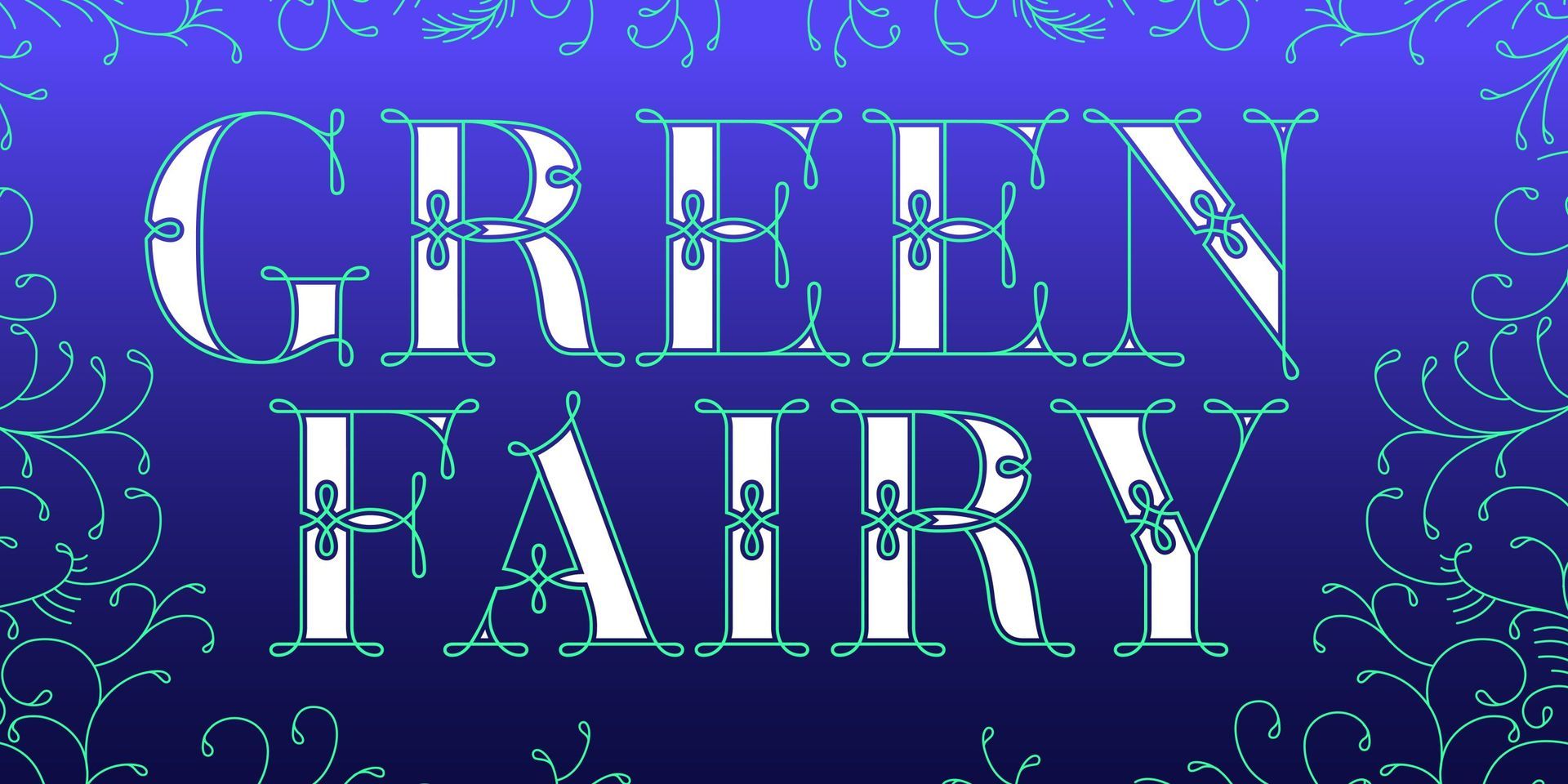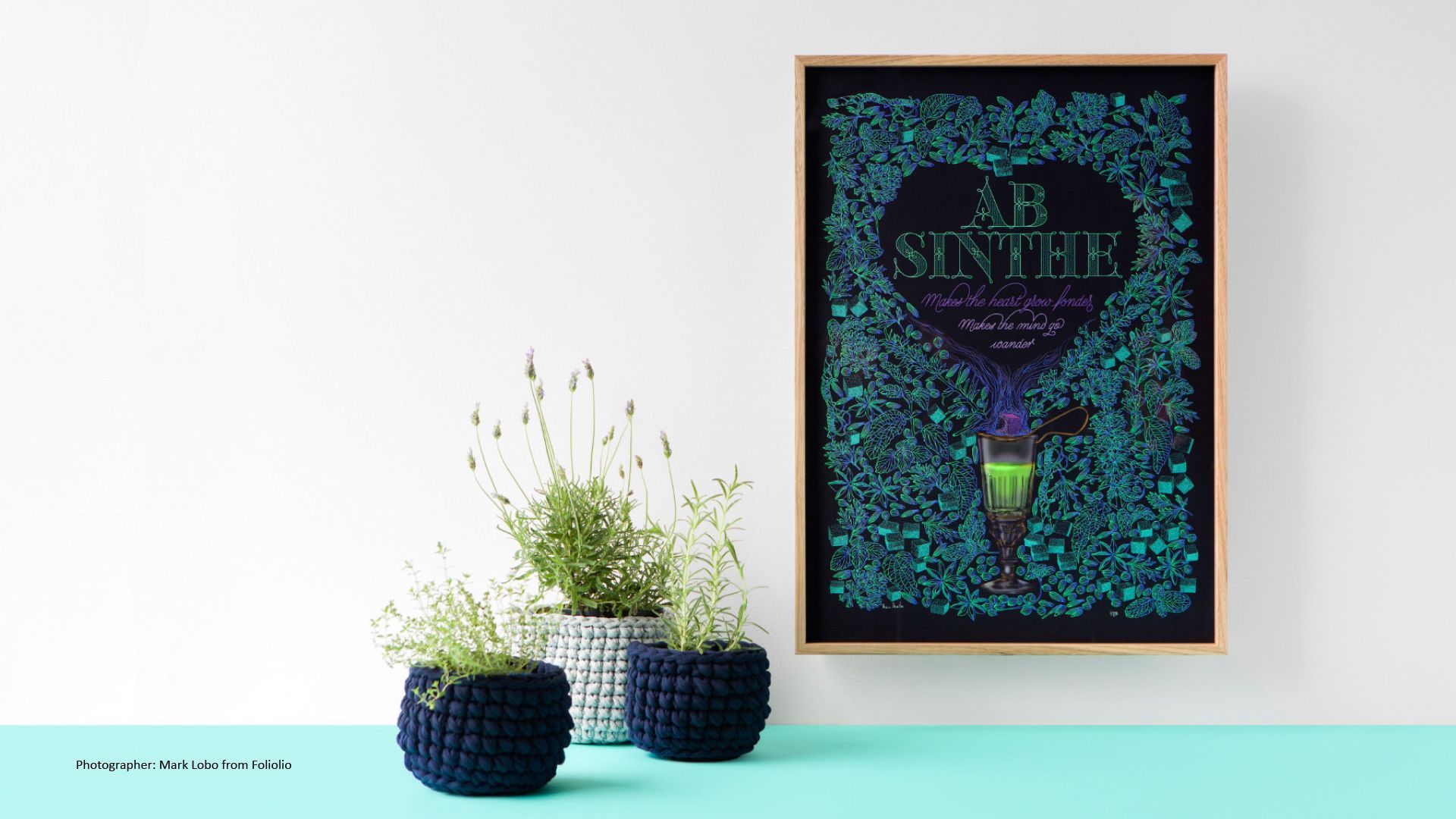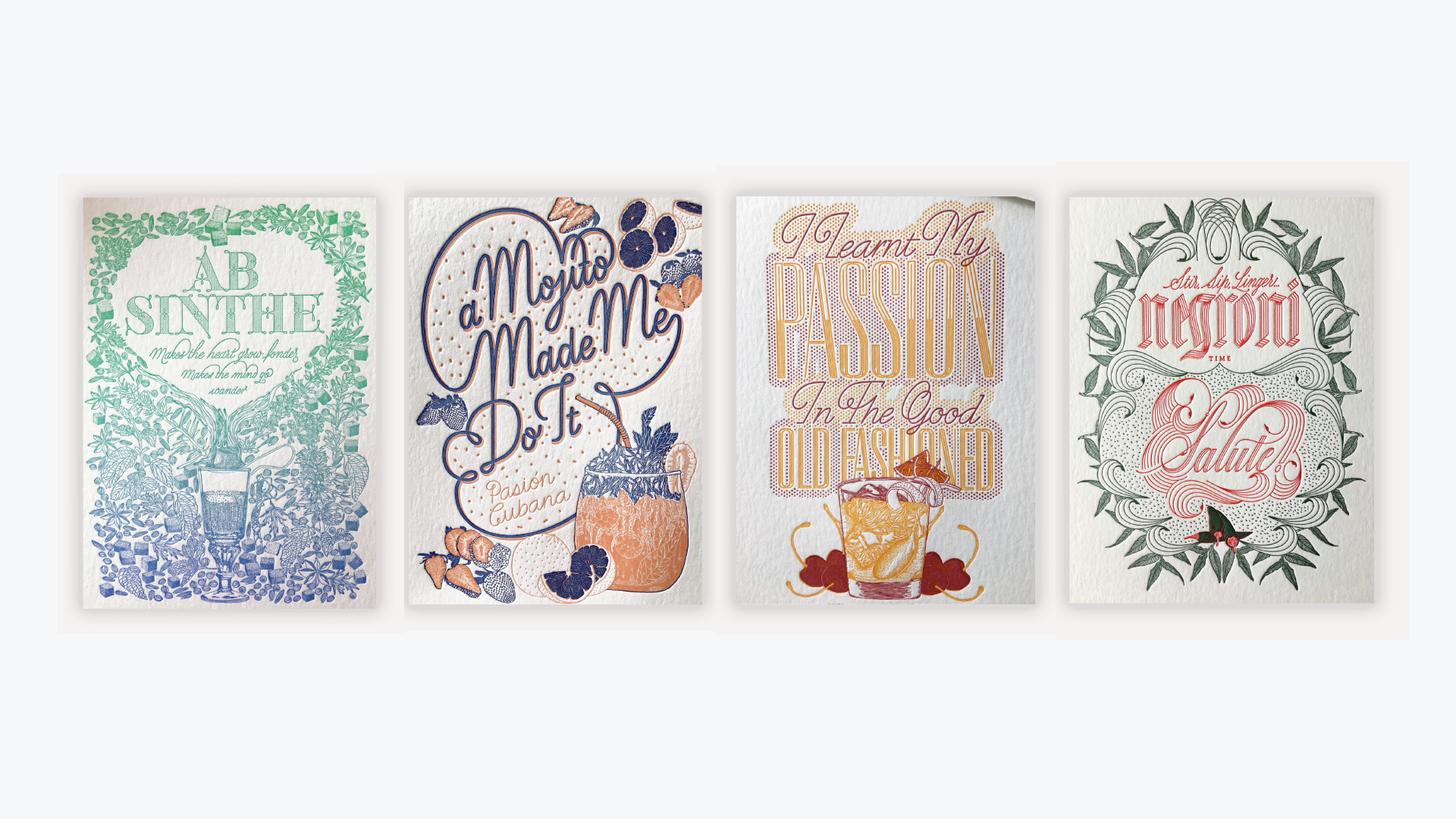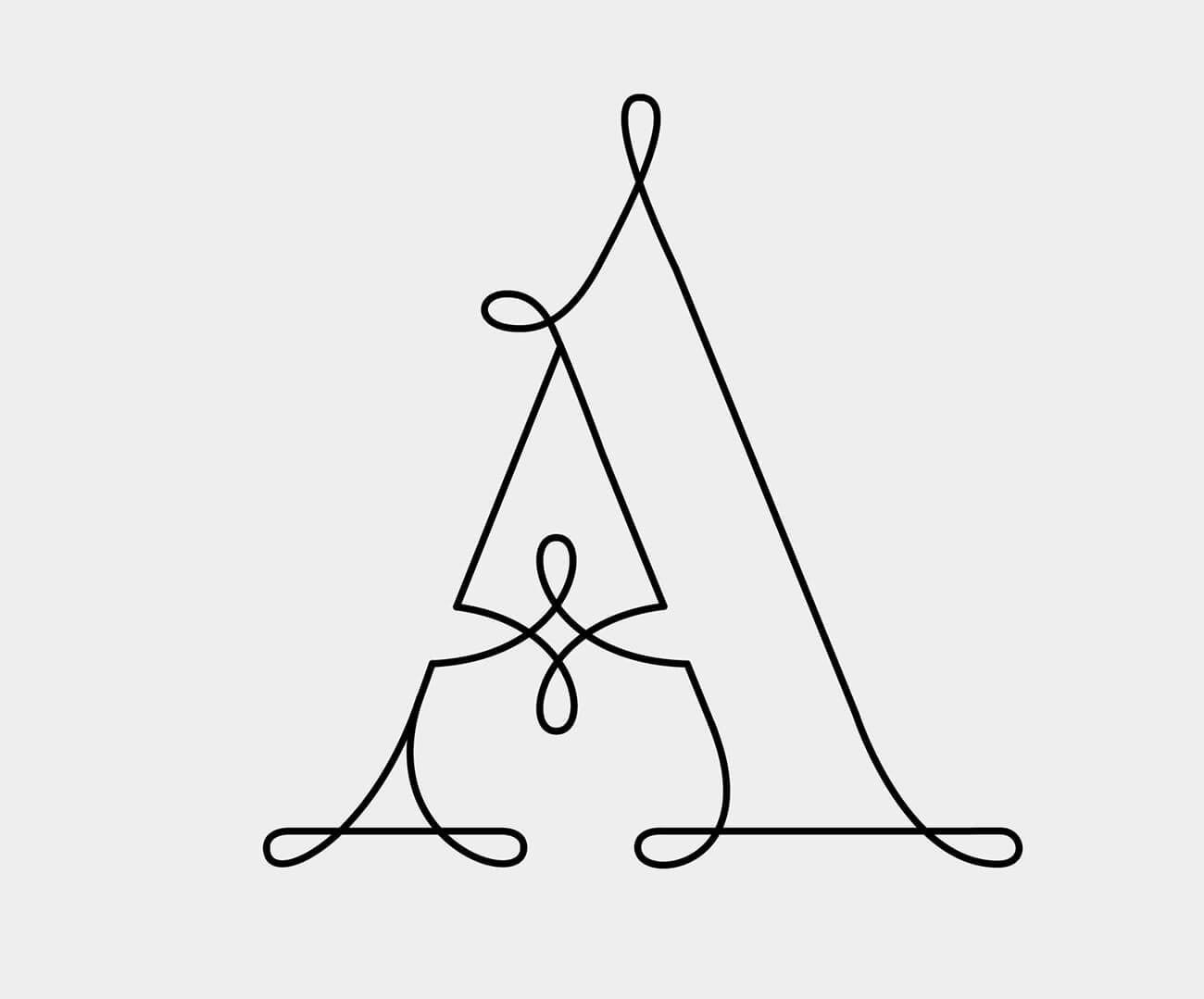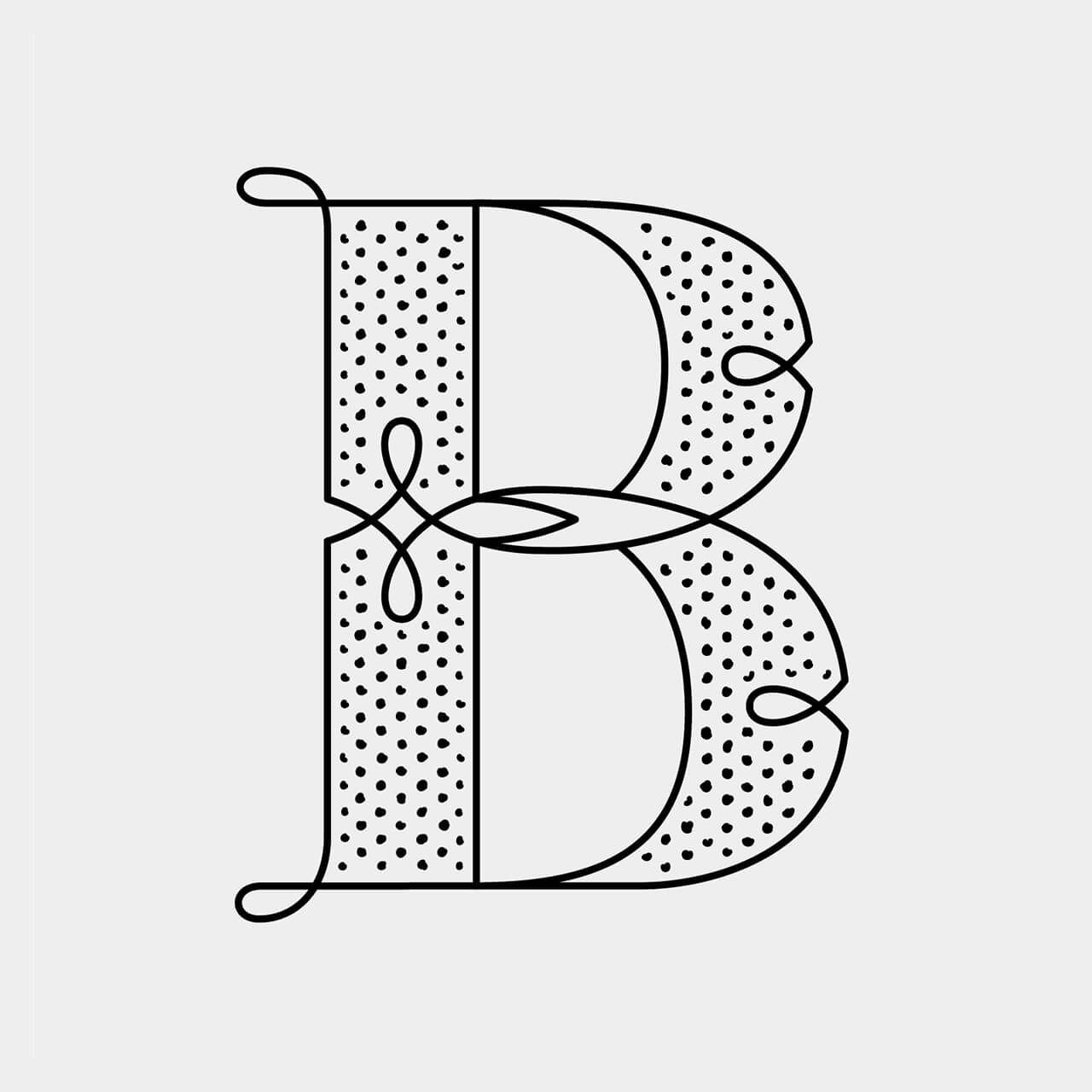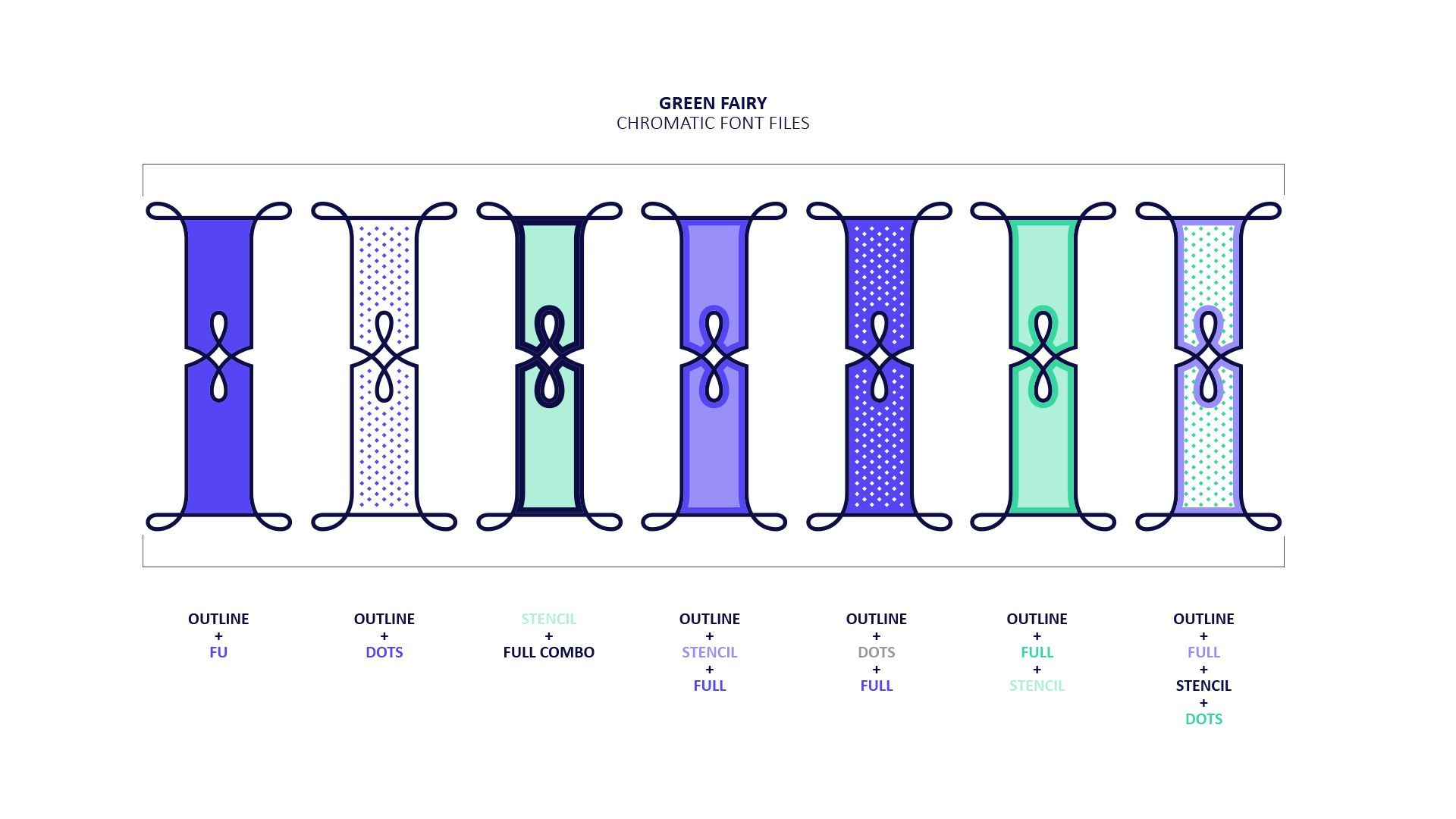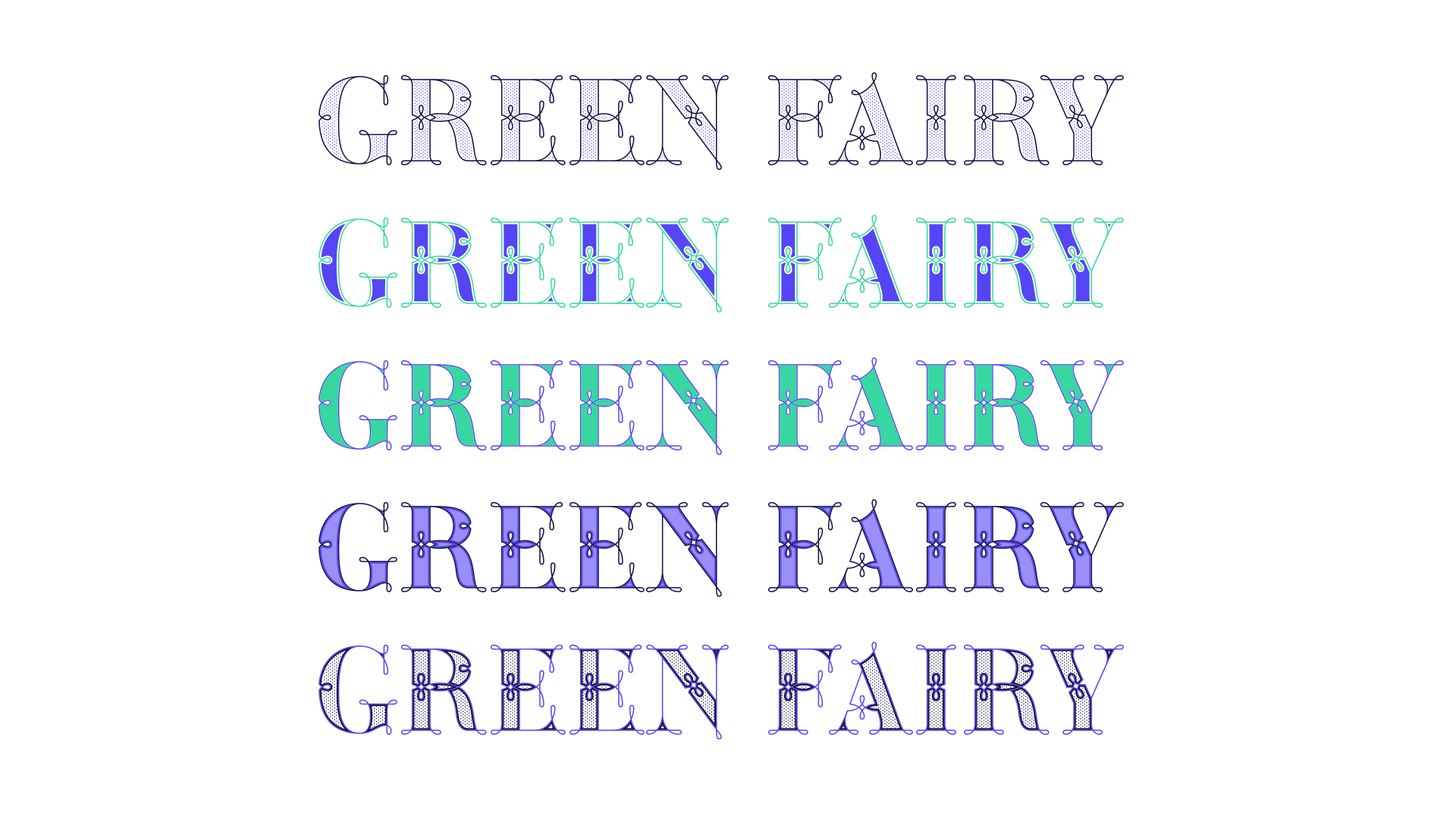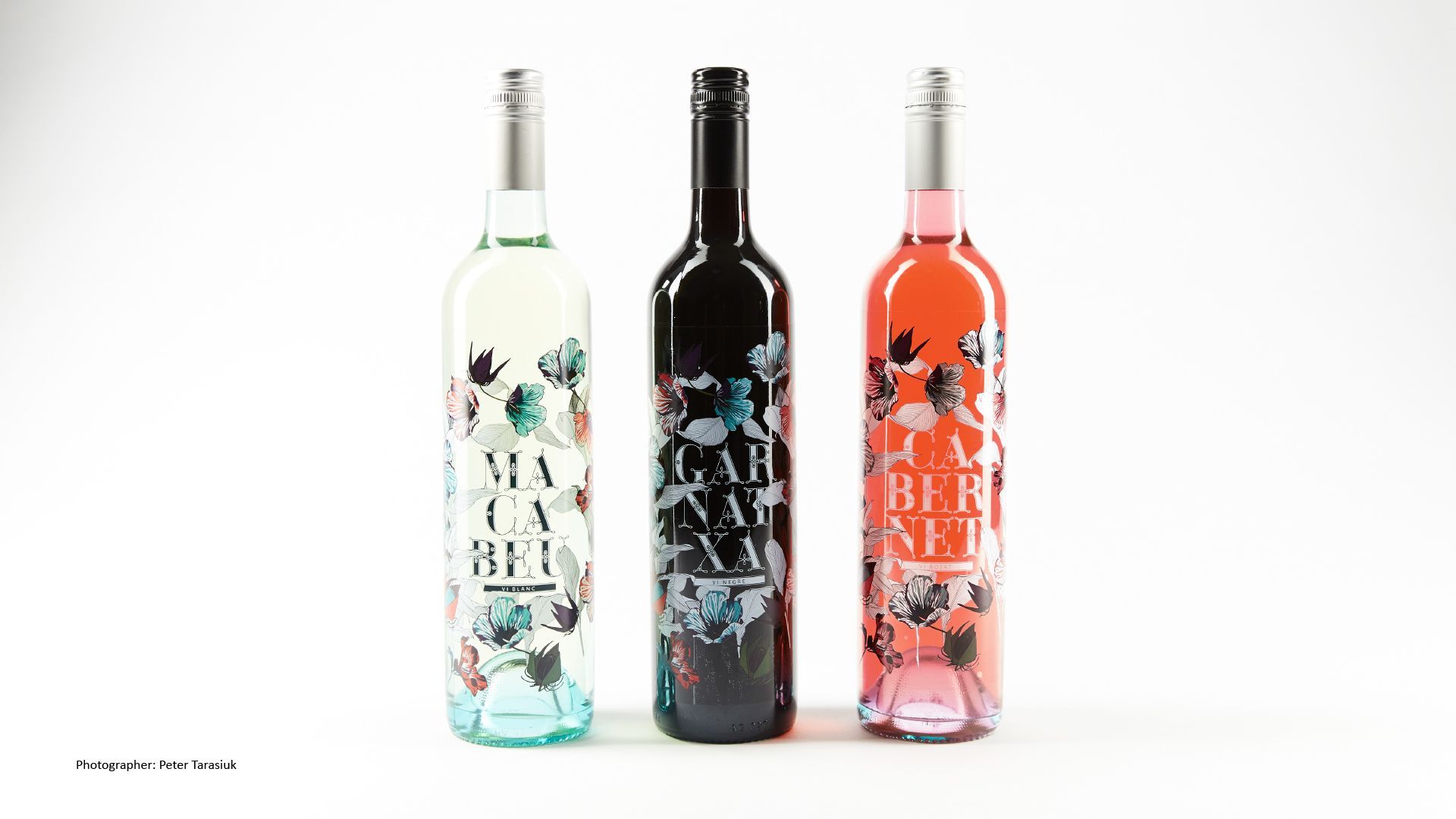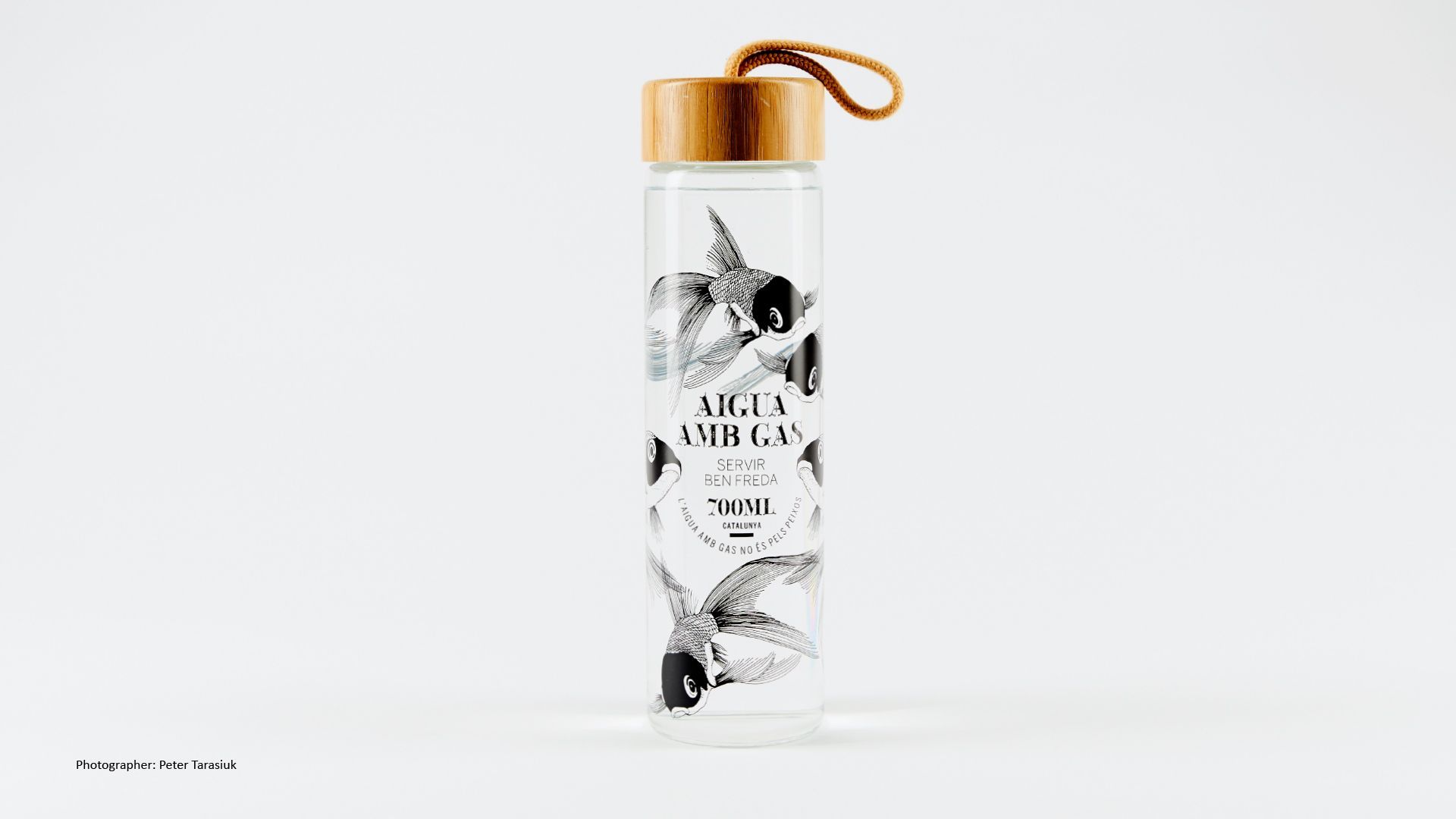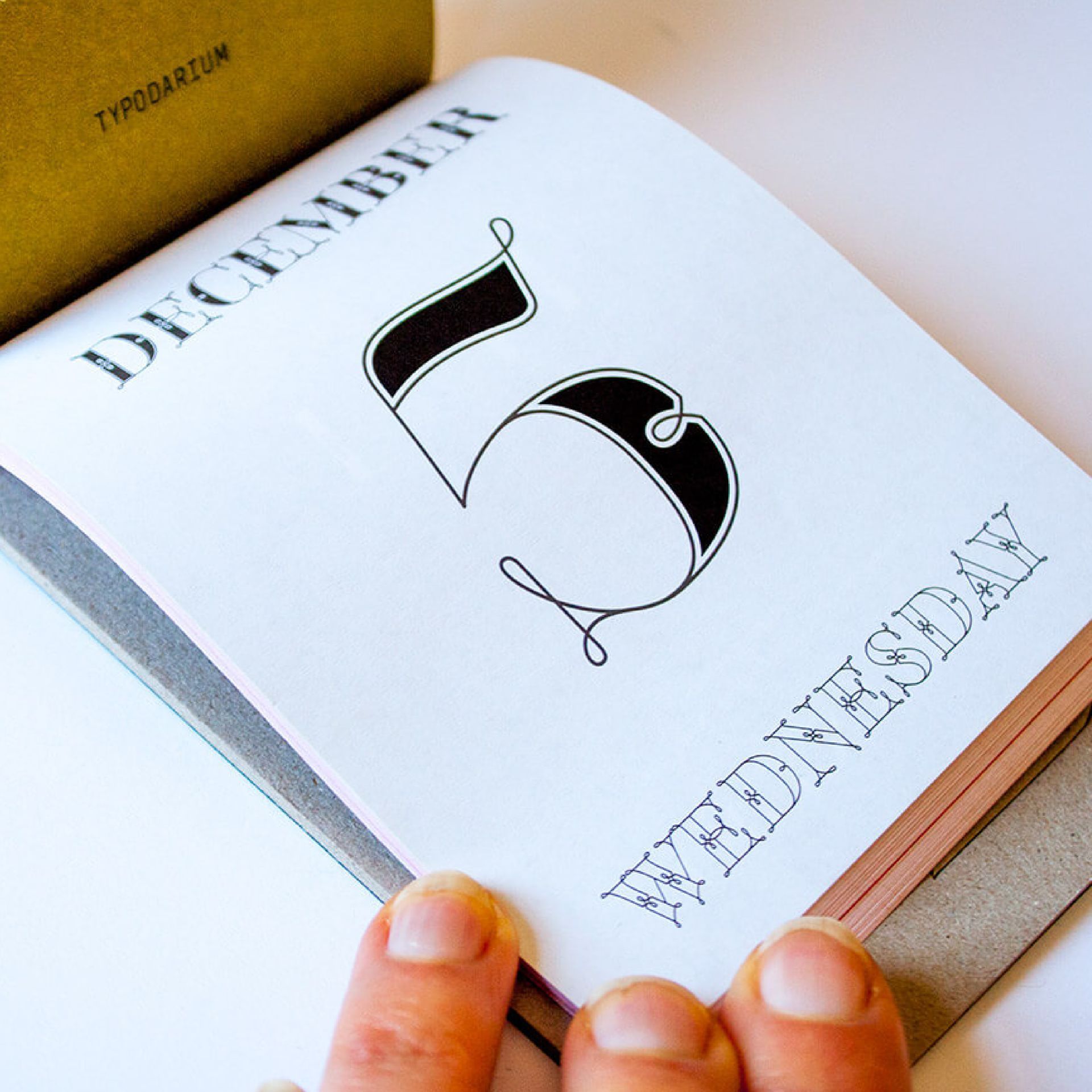
Green Fairy | Display Font Family
Stylized white text “GREEN FAIRY” on a blue-purple background with swirls and sparkles.
Stylized teal letter E with decorative flourishes beside a small icon and labels
Purple decorative “HOLA!” text with star accents on a blue background.
Decorative line-art spelling “I ♥ Y” with flowers and leaves on a light background
Decorative white “SWEET HOME” text on a dark blue background.
Stylized orange ampersand with yellow and white accents on a light gray background
Green Fairy Font Family
Green Fairy is a unicase chromatic font family highly ornamented for display purposes. Green Fairy’s characters have been specifically designed to accommodate its loops and ornaments following a modern typeface structure.
Green Fairy has four chromatic weights:
1. Green Fairy Outline
2. Green Fairy Dots
3. Green Fairy Stencil
4. Green Fairy Full
The outline weight has been created as the base for the other weights. You can combine these weights as well as add colours to obtain multiple effects and type styles.
Green Fairy has also three combined weights (combos) to simplify your work flow, for these occasions when you only want to use one single colour in your font:
5. Green Fairy Dots Combo
6. Green Fairy Stencil Combo
7. Green Fairy Full Combo
Green Fairy Font Background
The origin of this typeface is the lettering I designed in October 2015 as part of my illustrated cocktail artwork called “Absinthe. La Fée Verte (The Green Fairy)”. Originally, this lettering only featured eight letters “AB·SINTHE” vector drawn in Illustrator.
Right after creating the full-colour artwork, I designed a fountain-letterpress print version of it, in collaboration with Ladies of Letters, A.K.A. Carla Hackett and Amy Constable from Saint Gertrude Fine Printing.
Green Fairy TYPE DESIGN origins
At the beginning of 2016 —and thanks to the project @36daysoftype— I found the motivation, and most importantly the deadline, to draw the rest of the twenty-six letters of the uppercase alphabet using Adobe Illustrator.
Green Fairy Font A with decorative swirls on a white background
Green Fairy Font. Decorative letter B in black outline with dotted and striped fill.
Green Fairy Font. Stylized black-and-white letter C with decorative curved lines
Green Fairy Font. Black line drawing of a stylized letter D with a small inner knot-like loop on a white background
Green Fairy Font. Stylized black letter E with dotted left stem on a light gray background
Green Fairy Font. Decorative black serif letter H with ornate flourishes on a light background
Green Fairy Font. Stylized black outline letter G on a light gray background
Green Fairy Font. Decorative black serif H with dotted fill on a white background, linked by a small floral knot in the center
Green Fairy Font. Stylized black capital letter I with white outline and decorative curled serifs
Green Fairy Font. Minimal black line drawing of a stylized letter J with decorative loops on a light gray background
Green Fairy Font. Decorative black-and-white calligraphic capital K with dotted fill and flourished serifs
Green Fairy Font. Black decorative monogram letters L and J intertwined on a light background
Green Fairy Font. Decorative black monogram letters N and M intertwined on a white background
Green Fairy Font. Stylized letter N with dotted diagonal stripe and mirrored decorative serifs in black and white.
Green Fairy Font. Black-and-white oval sports ball logo with vertical white panels and side laces
Green Fairy Font. Decorative monogram letter P in thin black line art on a light gray background
Green Fairy Font. Stylized dotted balloon or mask with a long ribbon-like tail, outlined in black and white.
Green Fairy Font. Black-and-white decorative capital R with ornate serif details and a ribbon-like flourish
Green Fairy Font. Thin black line art letter “S” with decorative curls on a white background
Green Fairy Font. Stylized black-and-white monogram logo with an ornate T-like letter design and linked center shapes
Green Fairy Font. Decorative black-and-white stylized letter U with ornate serif flourishes
Green Fairy Font. Open notebook with bold black and white number typography on a desk, hand pointing at chalk-style numbers
Green Fairy Font. White line drawing of a triangular symbol over dark mushrooms and pine needles
Green Fairy Font. Orange and white ribbon-shaped ampersand with brown outline on a light background